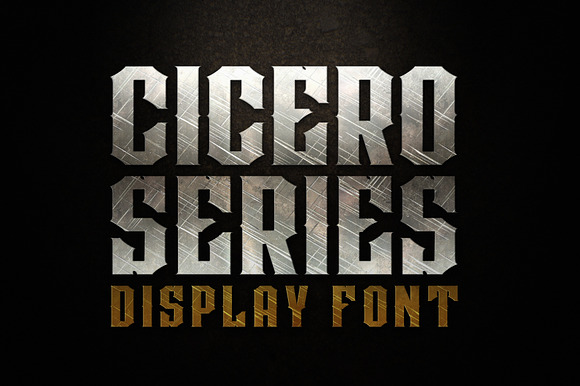
CICERO SERIES DISPLAY FONTS
- Each font contains letters as displayed, numbers, punctuation and latin based international characters.
- Each font contains multiple alternatives of the letters and can be used together as well.
CICERO SERIES DISPLAY FONTS by Alphabet Agency fits naturally into Branding, posters, packaging, typography.